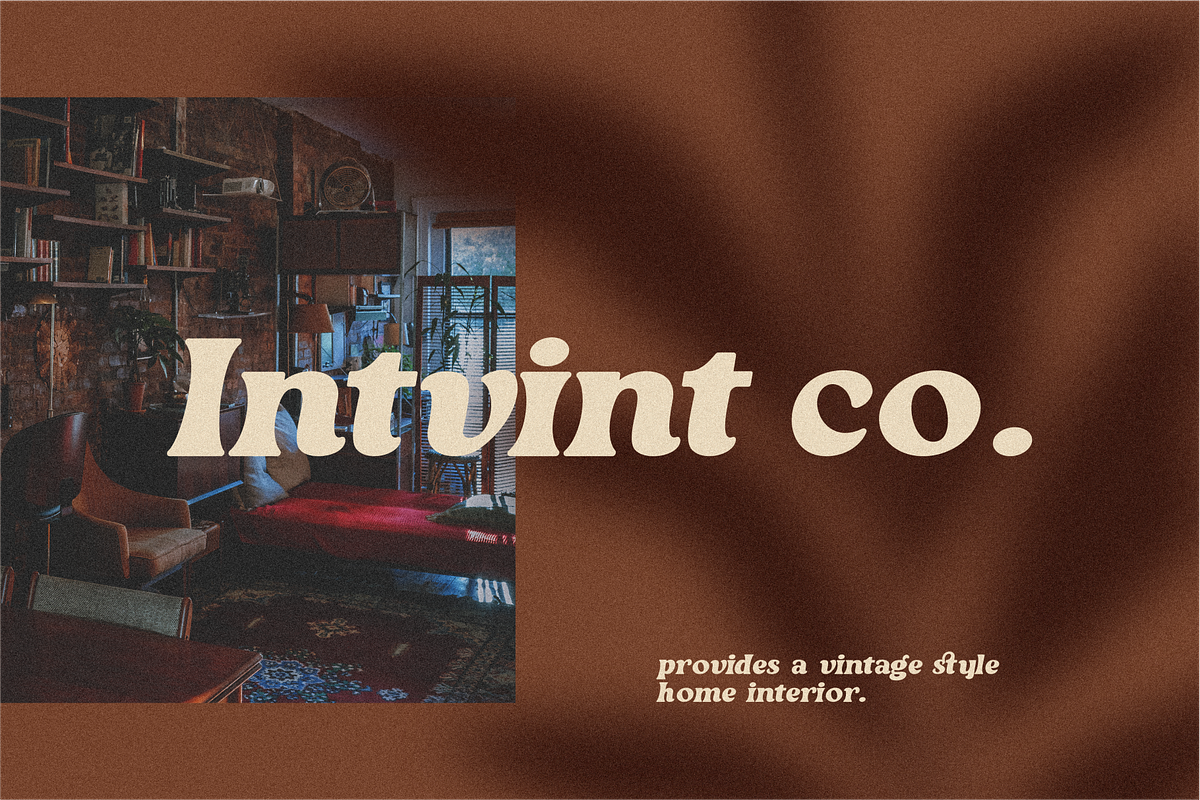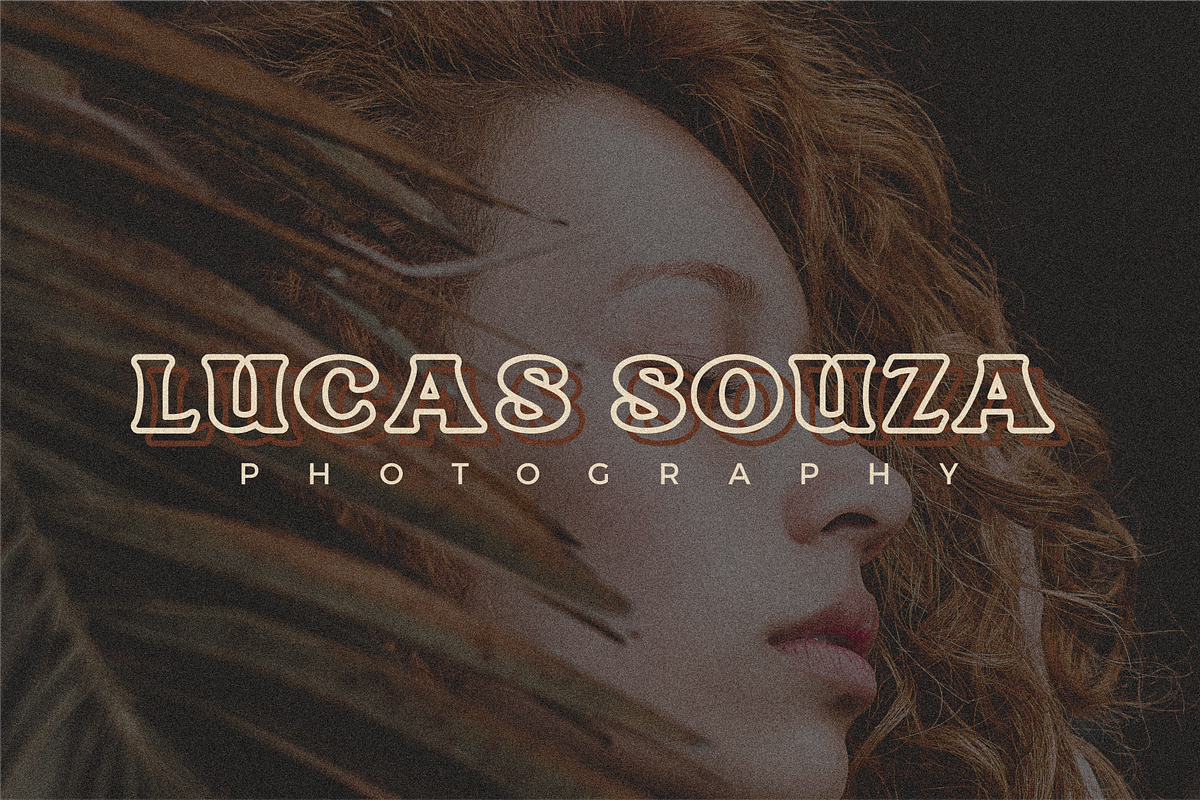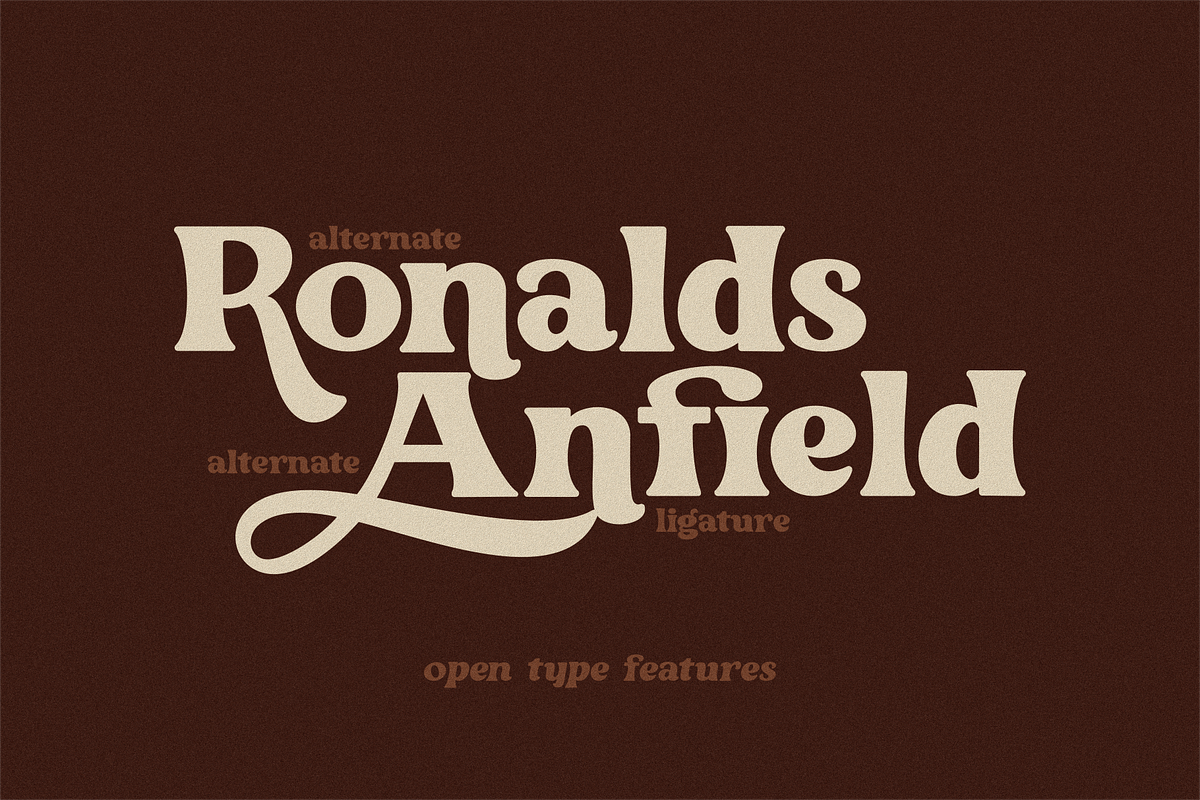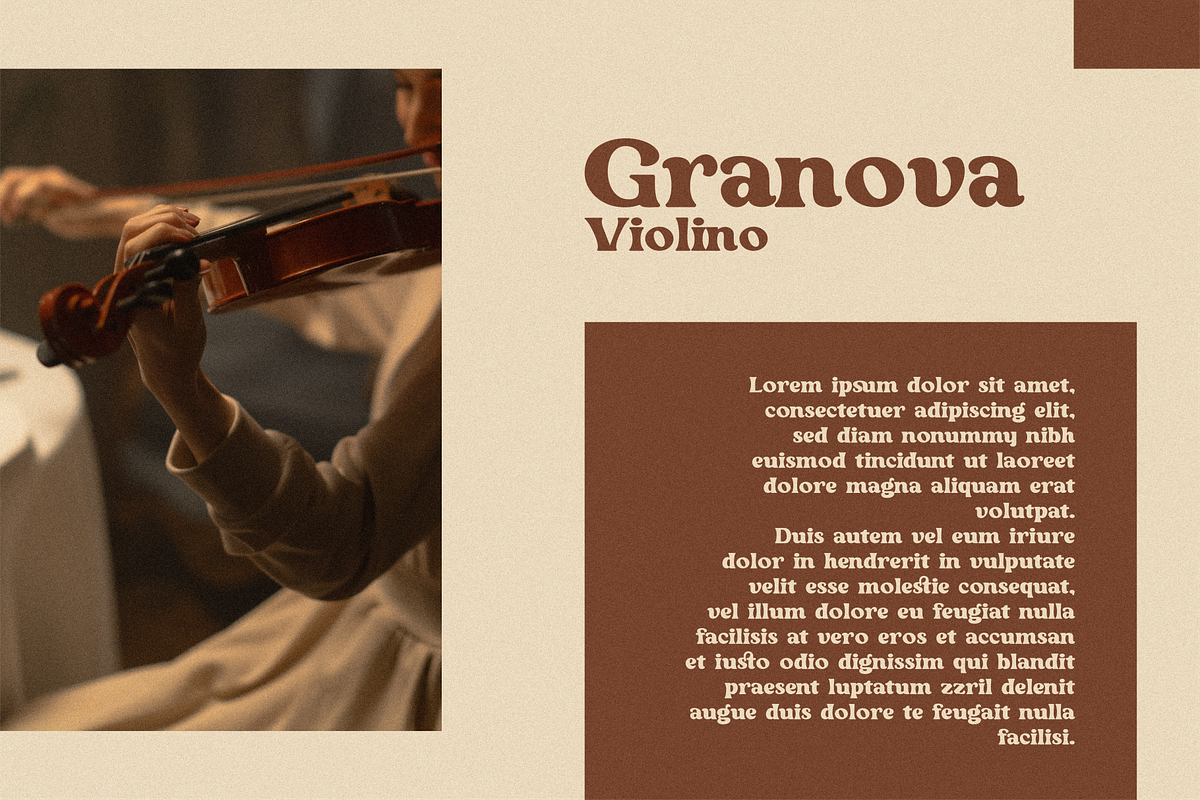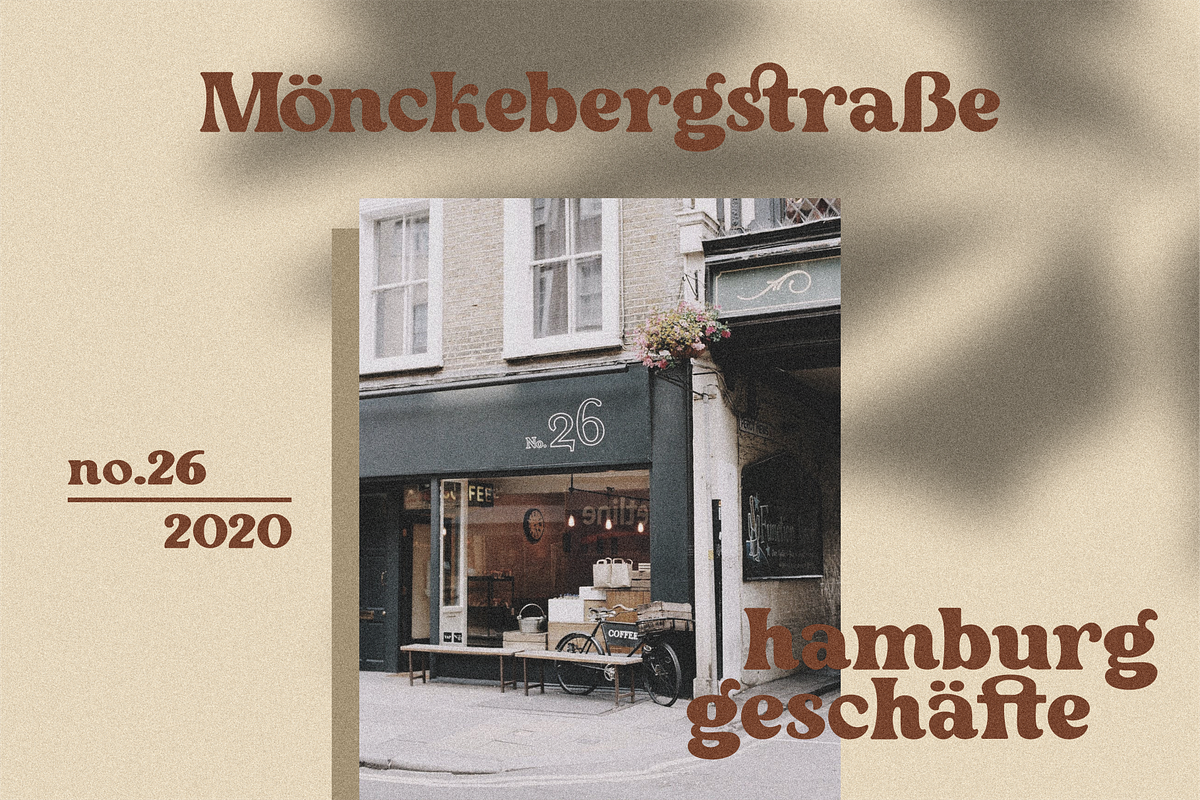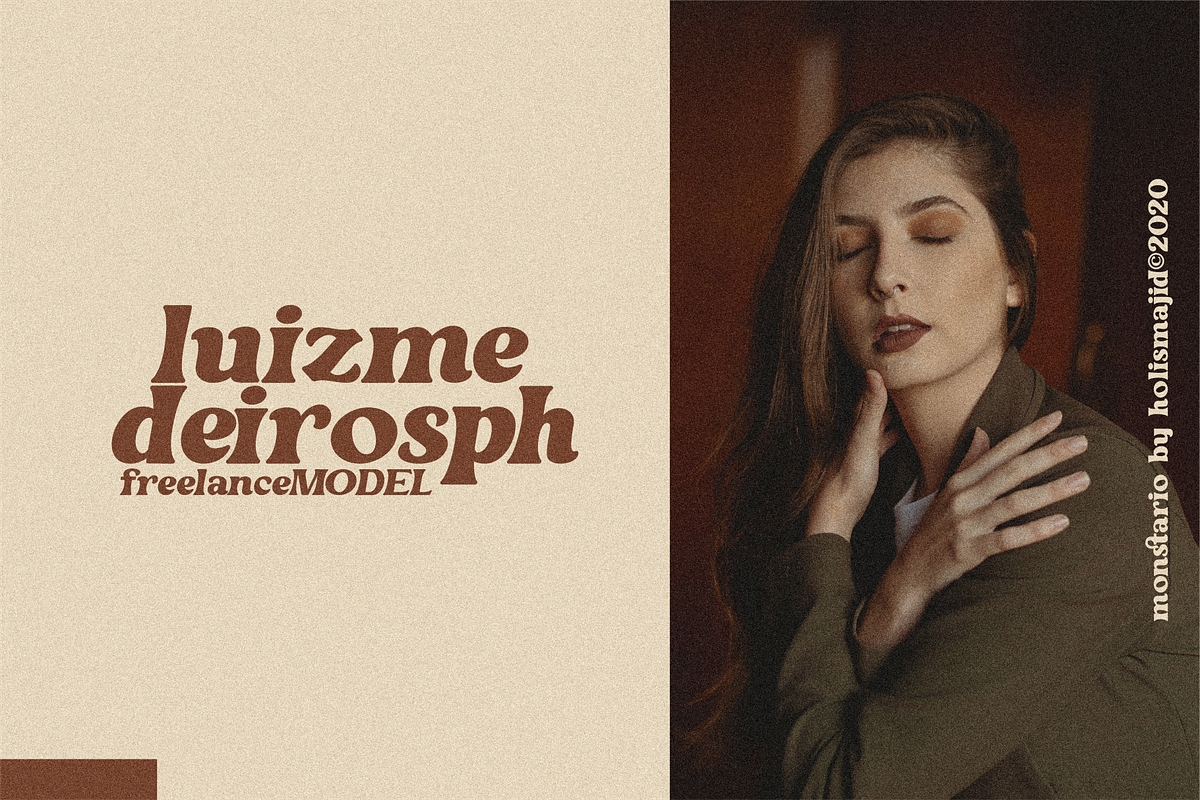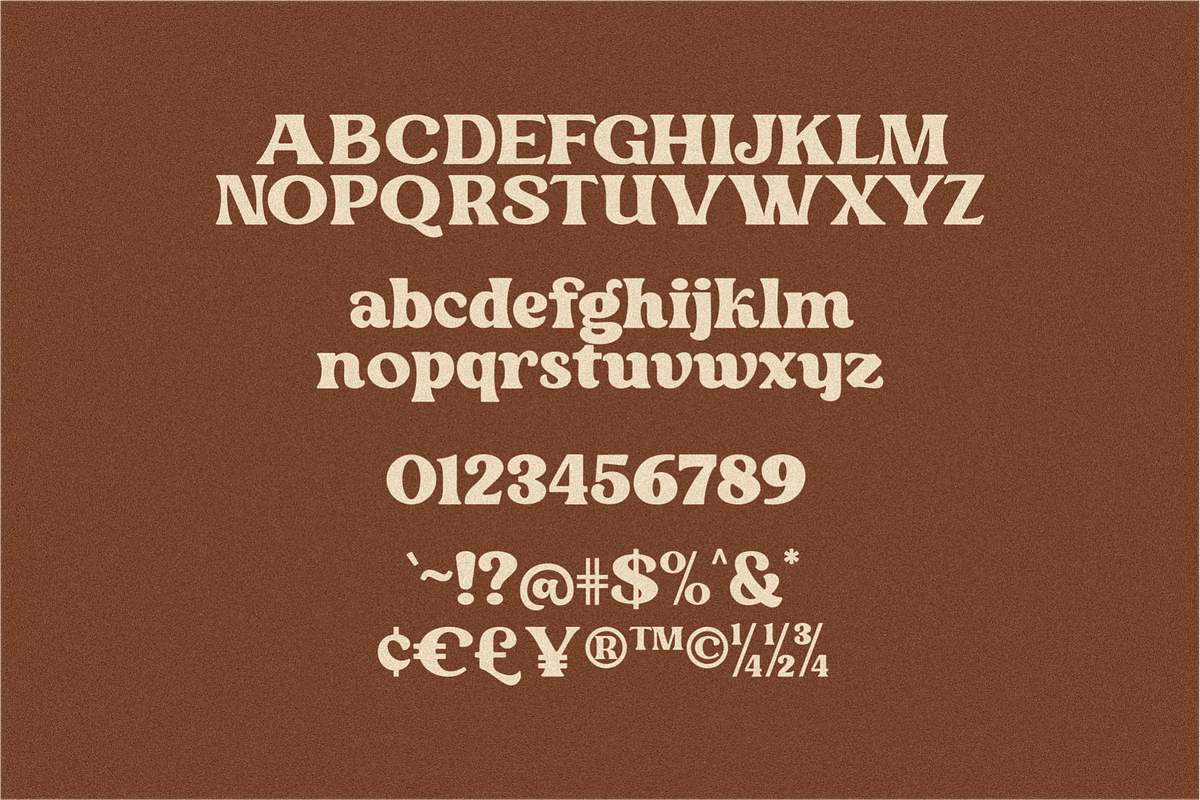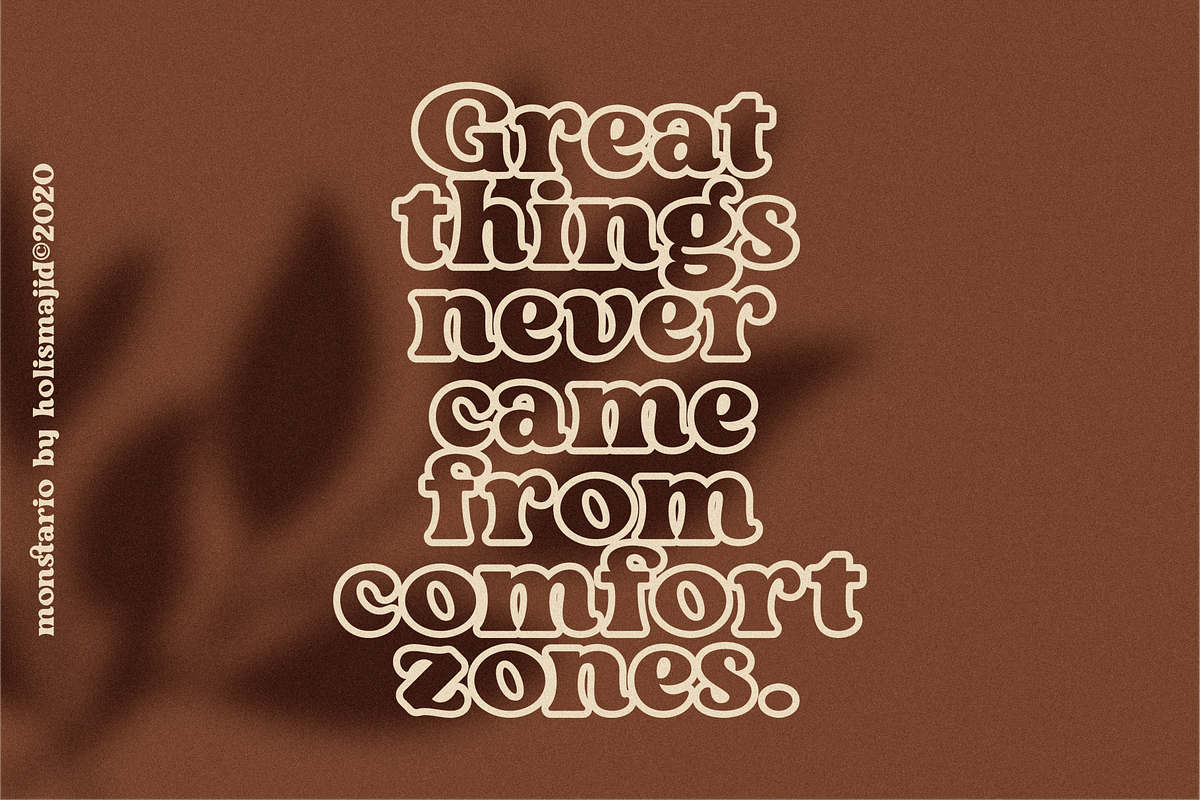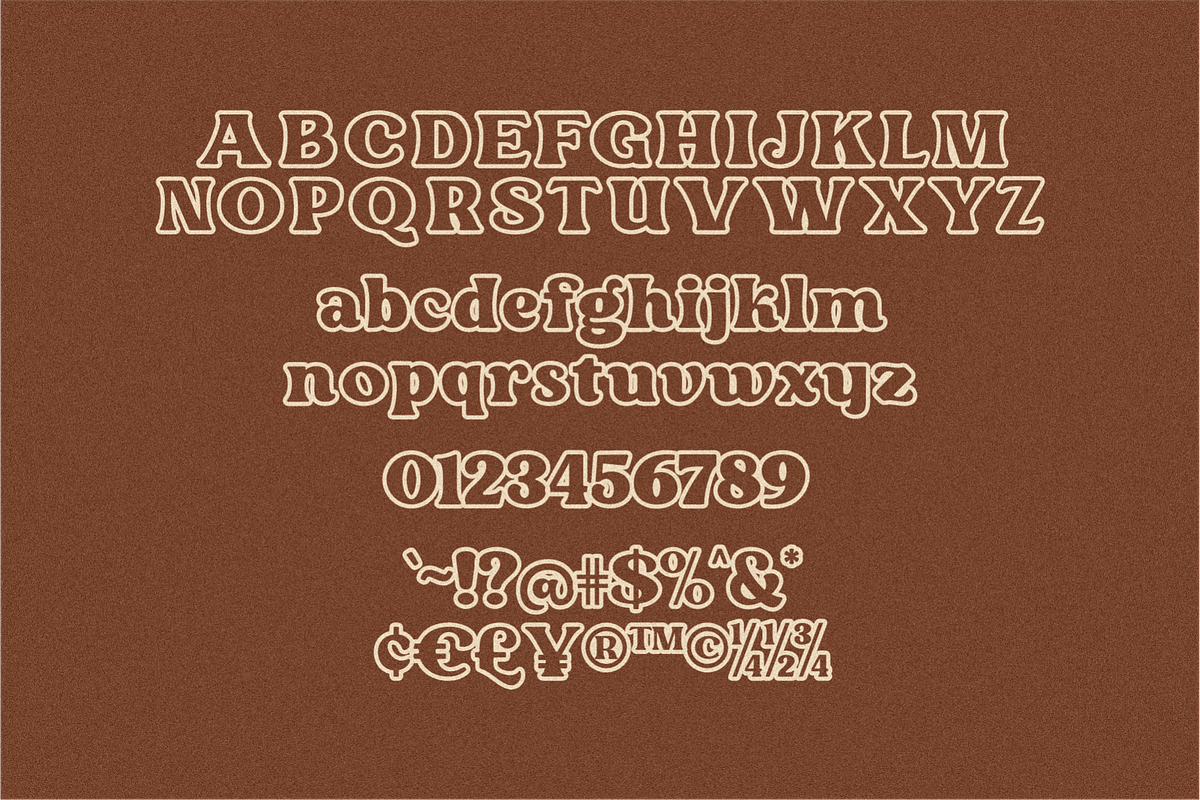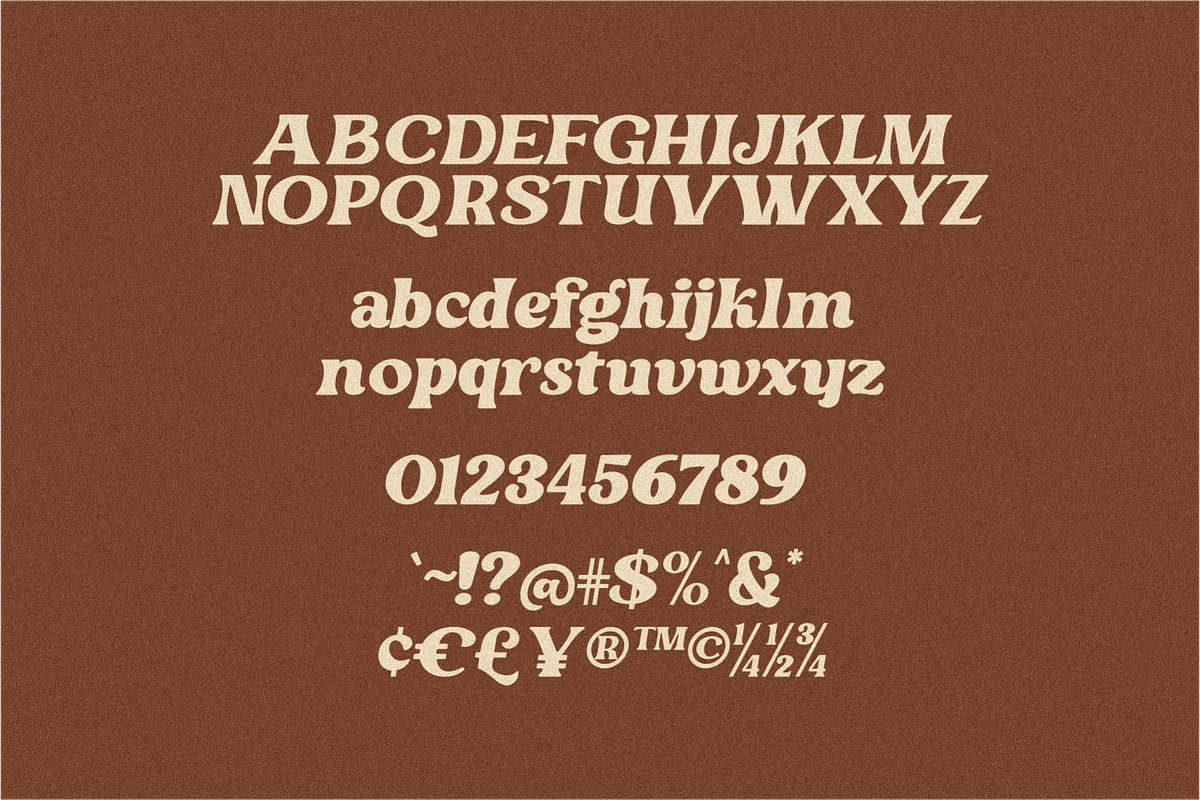
Monstario Serif
Monstario is a font with a bold serif font style, has a classic and vintage impression, suitable for logos, quotes, posters, and other design products that need a classic touch. This font comes in three types, Regular, Italic, and outline.